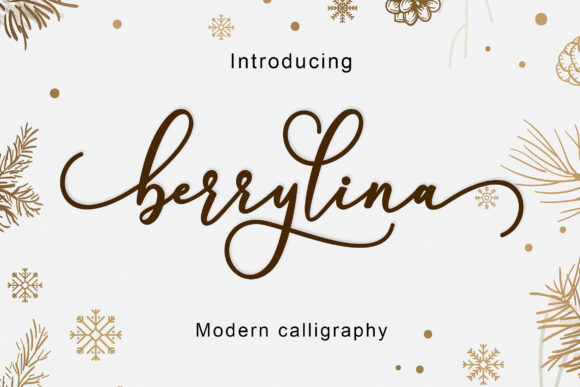
Berrylina Script Font: Elevate Your Designs with Elegance and Sophistication
The world of typography is vast and diverse, offering a multitude of font styles to suit various design needs. Among these, script fonts hold a special place for their elegance, sophistication, and ability to add a personal touch to any design project. One such remarkable script font is Berrylina, which has been gaining attention for its unique features and versatility. In this article, we’ll delve into the world of Berrylina Script Font, exploring its characteristics, uses, and the creative possibilities it offers.
Introduction to Berrylina Script Font
Berrylina is an extraordinary script font that features wonderfully dynamic swashes, making it stand out in the realm of typography. Designed with elegance and sophistication in mind, Berrylina is perfect for a wide range of design projects, from branding and advertising to packaging and editorial design. Its fluid strokes and beautiful swashes bring a touch of luxury and refinement to any text, making it an excellent choice for designers looking to elevate their work.
Key Features of Berrylina Script Font
• Dynamic Swashes: One of the most distinctive features of Berrylina is its wonderfully dynamic swashes. These swashes add a touch of movement and fluidity to the text, making it more visually appealing.
• Elegant and Sophisticated: Berrylina’s elegant and sophisticated design makes it perfect for high-end branding, luxury packaging, and editorial projects that require a touch of refinement.
• Versatile: Berrylina is a versatile font that can be used in a variety of design projects, from digital applications to print materials.
• Easy to Read: Despite its elegant and cursive nature, Berrylina is easy to read, making it suitable for body text as well as headlines.
Uses of Berrylina Script Font
Berrylina’s versatility and elegance make it suitable for a wide range of design applications. Here are some of the most popular uses of Berrylina Script Font:
Branding and Logo Design
Berrylina is an excellent choice for branding and logo design, particularly for luxury brands that require a sophisticated and elegant look. Its unique swashes and fluid strokes make it perfect for creating memorable and impactful logos.
Advertising and Marketing Materials
In advertising and marketing materials, Berrylina can be used to add a touch of elegance and sophistication. Its dynamic swashes and beautiful letterforms make it perfect for headlines, taglines, and promotional materials.
Packaging Design
Berrylina is also suitable for packaging design, particularly for luxury products that require a high-end look. Its elegant and sophisticated design makes it perfect for product labels, packaging inserts, and other marketing materials.
Editorial Design
In editorial design, Berrylina can be used for article titles, headings, and other design elements that require a touch of elegance and sophistication. Its easy readability and beautiful letterforms make it perfect for body text as well.
Tips for Using Berrylina Script Font
To get the most out of Berrylina Script Font, here are some tips to keep in mind:
Pair it with a Simple Font
To create visual balance, pair Berrylina with a simple font for body text. This will help to create contrast and make your design more readable.
Experiment with Swashes
Berrylina’s dynamic swashes are one of its most distinctive features. Experiment with different swash styles to find the one that works best for your design.
Use it for Headlines and Titles
Berrylina is perfect for headlines and titles, where its elegant and sophisticated design can shine. Use it to create impactful and memorable headings that grab attention.
Consider the Color Scheme
Berrylina looks beautiful in a variety of colors, but it’s particularly striking in metallic or pastel shades. Consider the color scheme of your design and choose a color that complements Berrylina’s elegant and sophisticated look.
Berrylina Script Font is a versatile and elegant font that offers a unique combination of sophistication and refinement. Its dynamic swashes, fluid strokes, and beautiful letterforms make it perfect for a wide range of design projects, from branding and advertising to packaging and editorial design. With its easy readability and versatility, Berrylina is an excellent choice for designers looking to elevate their work and add a touch of luxury to their designs.